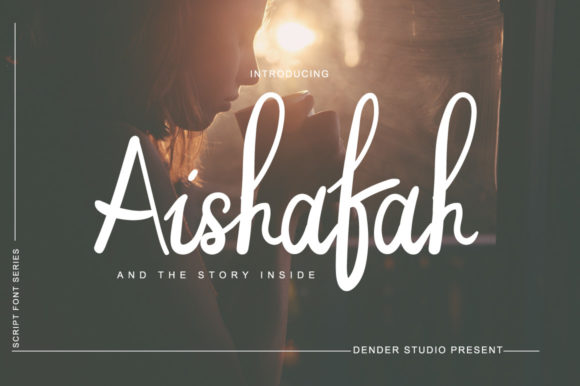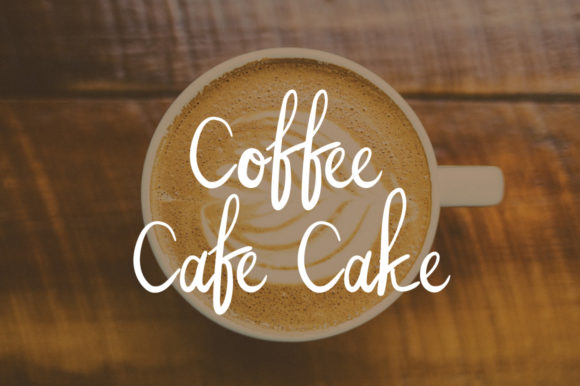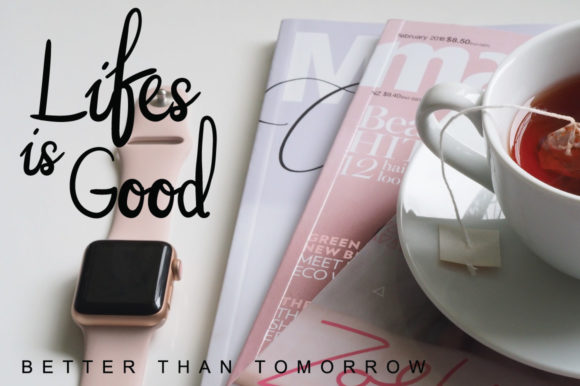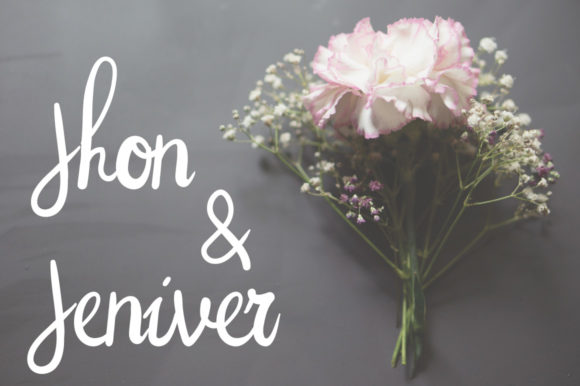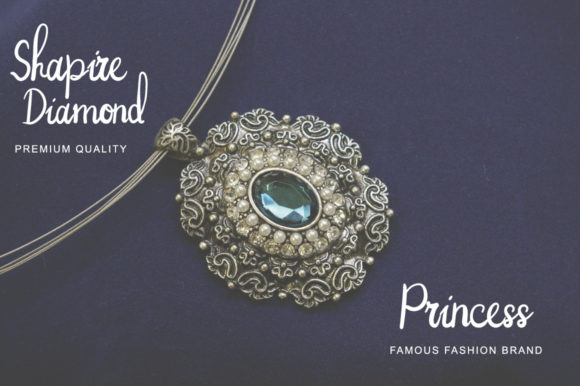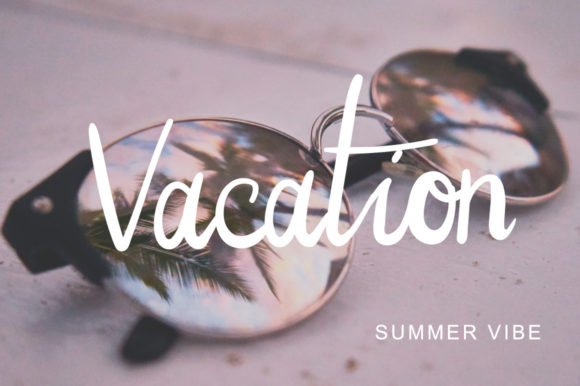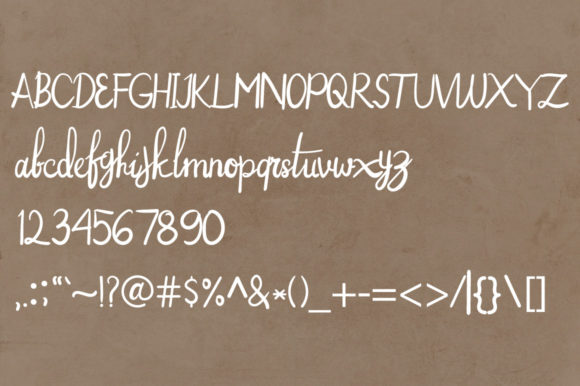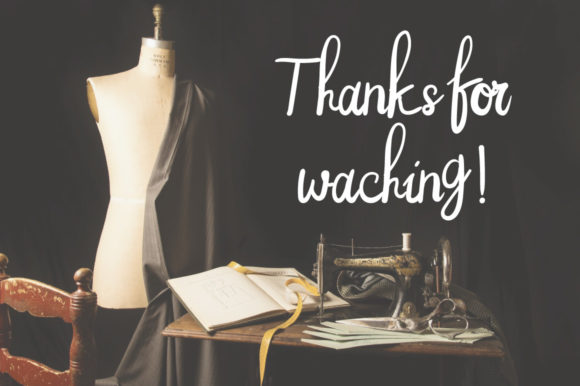
Aishafah Font
About Aishafah Font
Introducing Aishafah, a captivating flowing handwritten font that exudes elegance and charm. This font is a true gem, with its graceful and seamless appearance, making it an ideal choice for all your favorite projects. Prepare to be enamored by its beauty and sophistication, as Aishafah elevates your designs to new heights of creativity and allure.
Aishafah’s flowing and elegant touch lends an air of grace and refinement to your text. Each letter dances effortlessly, as if written with the precision of a skilled calligrapher’s hand. Whether you’re designing wedding invitations, love letters, or inspiring quotes, Aishafah adds a touch of sophistication that captivates the heart and soul.
As you fall in love with Aishafah, you’ll discover its versatility knows no bounds. Use it for branding and logo design to create a distinctive and memorable identity for your business. The font’s flowing elegance adds a touch of refinement, making your brand stand out with a unique and captivating allure.
For digital media, Aishafah shines as well. Whether you’re creating social media graphics, blog headers, or digital artwork, this font infuses a sense of charm and artistry that draws viewers in and leaves a lasting impression.
Imagine using Aishafah for special moments like birthdays, anniversaries, and celebrations. The font’s distinct and timeless style elevates the mood and atmosphere, creating an immersive experience for your audience.
In typography art, Aishafah becomes an exquisite centerpiece. Use it to create stunning prints that adorn your living space with elegance and beauty. The font’s flowing and distinct appearance adds an element of luxury to your artwork, making it a focal point of admiration.
In longer passages, Aishafah maintains its legibility, making it a valuable asset for editorial designs like books, magazines, and brochures. Its smooth flow ensures that your readers can immerse themselves in the written words without any distraction.
In conclusion, Aishafah is more than just a font; it’s a journey of elegance and timeless beauty. With its flowing handwritten style and captivating allure, Aishafah becomes your go-to choice for all your design projects. From wedding invitations to branding, typography art, and beyond, Aishafah elevates your creations to spectacular heights of beauty and creativity. Embrace the enchantment of Aishafah and watch as your designs come alive with grace and charm. Let your creativity soar in the flowing and elegant embrace of Aishafah, the handwritten font that defines sophistication.